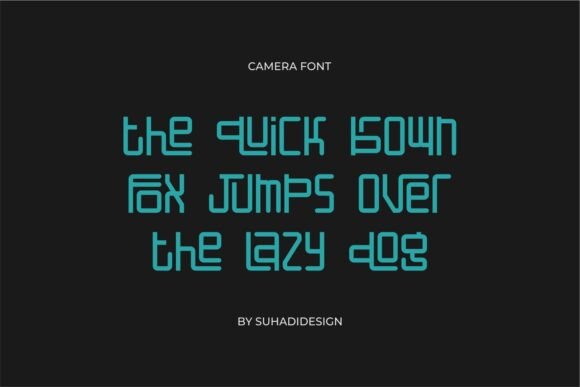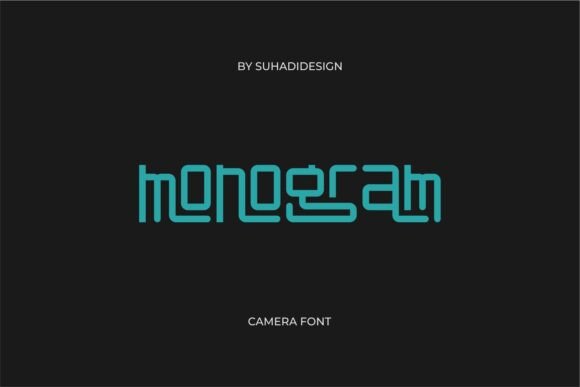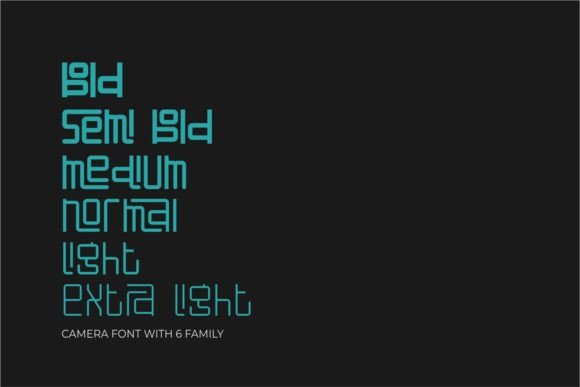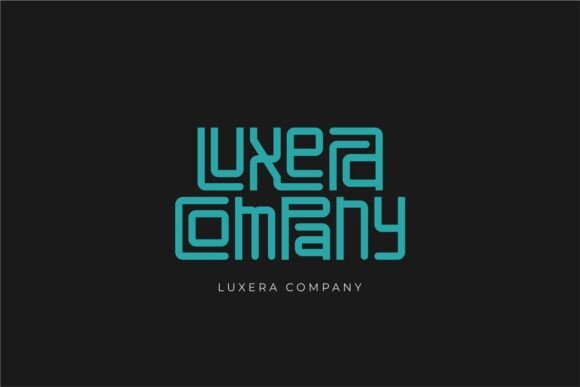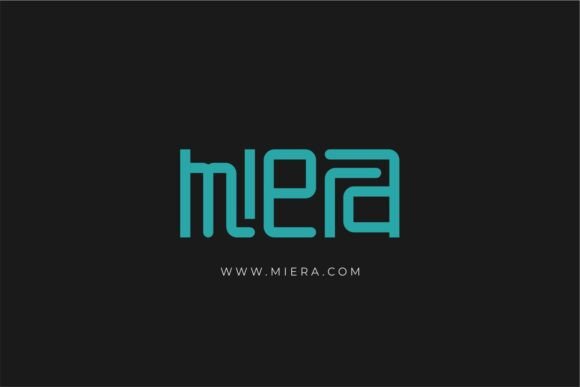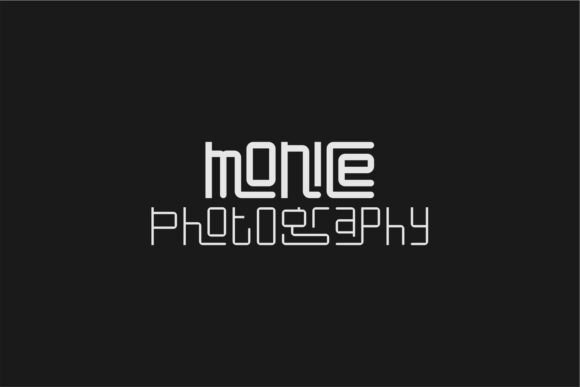
Introducing Camera Font: The Modern Sans Serif Font for Creative Designs
In the world of typography, fonts play a crucial role in making or breaking a design. A well-chosen font can elevate a project from ordinary to extraordinary. If you’re a designer, craftsperson, or simply someone who appreciates beautiful typography, you’re in for a treat. Meet Camera Font, a modern sans serif font that’s taking the design world by storm.
What is Camera Font?
Camera Font is a sleek and sophisticated sans serif font that’s designed to make a statement. With 136 ligatures, this font is presented in a modern monogram style that’s both elegant and classy. The creators of Camera Font aimed to design a font that would become a market favorite, and with its unique features, it’s well on its way to achieving that goal.
Key Features of Camera Font
- Modern Sans Serif Design: Camera Font boasts a clean and minimalist design that’s perfect for creating modern and stylish designs.
- 136 Ligatures: The font comes with 136 ligatures, which allow you to create unique and creative monograms that will make your designs stand out.
- Elegant and Classy: Camera Font is designed to exude elegance and sophistication, making it perfect for high-end designs and luxury brands.
- Easy to Use: Despite its advanced features, Camera Font is easy to use, even for those who are new to font design.
Camera Font is an incredibly versatile font that can be used for a wide range of projects. Here are some ideas to get you started:
- Logos and Branding: Create a memorable logo or brand identity with Camera Font’s unique ligatures and modern design.
- Fashion and Beauty: Use Camera Font to create stunning fashion posters, banners, and advertisements that showcase your brand’s style and sophistication.
- Posters and Banners: Make a statement with Camera Font’s bold and elegant design, perfect for creating eye-catching posters and banners.
- Labels and Packaging: Add a touch of elegance to your product labels and packaging with Camera Font’s modern and stylish design.
- Quotes and Typography: Use Camera Font to create beautiful typographic quotes and designs that showcase your creativity and style.
Take Your Design to the Next Level
With Camera Font, you can take your design to new heights. The font’s modern and elegant design makes it perfect for creating stunning visual effects that will leave your audience impressed. Whether you’re a professional designer or a craftsperson, Camera Font is the perfect tool to help you achieve your creative goals.
Why Choose Camera Font?
So, why choose Camera Font over other fonts? Here are just a few reasons:
- Unique Design: Camera Font’s modern monogram style and 136 ligatures make it a one-of-a-kind font that’s sure to stand out.
- Ease of Use: Despite its advanced features, Camera Font is easy to use, even for those who are new to font design.
- Versatility: Camera Font can be used for a wide range of projects, from logos and branding to fashion and beauty.
In conclusion, Camera Font is a modern sans serif font that’s perfect for designers and craftspersons who want to create stunning visual effects. With its unique design, ease of use, and versatility, Camera Font is sure to become a market favorite. So, what are you waiting for? Get your hands on Camera Font today and take your design to new heights!